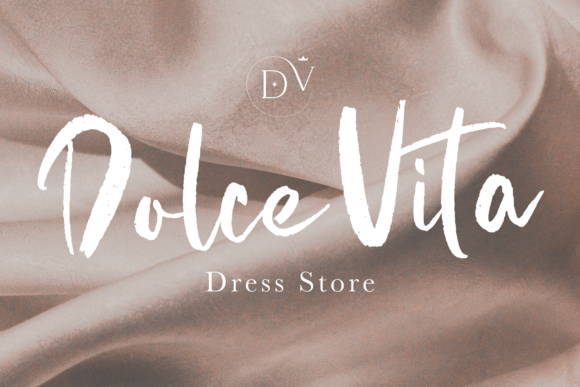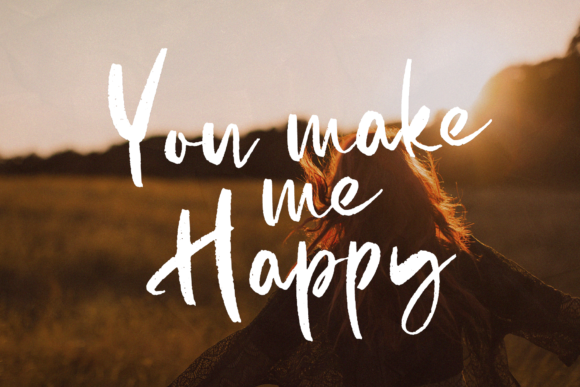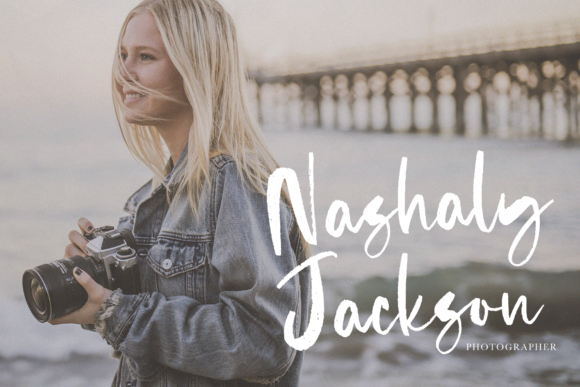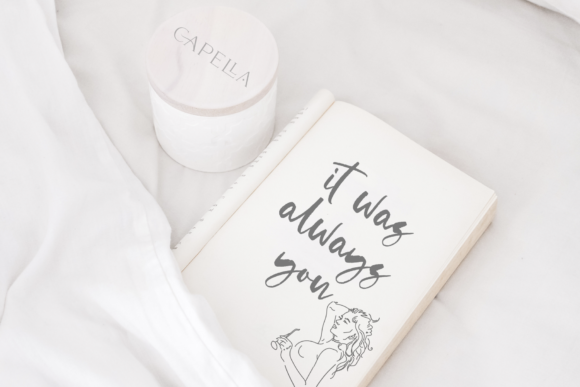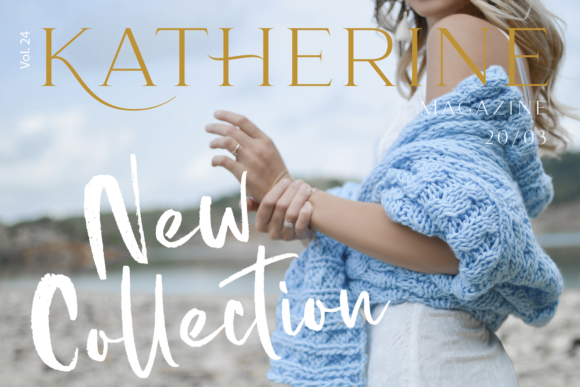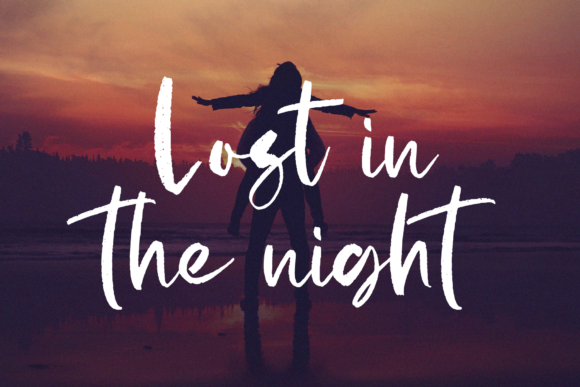
Introducing Capella Font: The Perfect Addition to Your Crafting Projects
Are you a designer or crafter looking for a unique and stylish font to add a personal touch to your projects? Look no further than Capella Font! This cheerful and stylish font is sure to elevate your crafting projects to the next level, making them stand out from the crowd.
What is Capella Font?
Capella Font is a modern and elegant font designed specifically for crafters and designers. Its unique and stylish design makes it perfect for a wide range of crafting projects, from DIY cards and invitations to scrapbooking and journaling.
With its clean lines and beautiful curves, Capella Font is a versatile font that can be used for both personal and commercial projects. Whether you’re creating a handmade gift or a professional marketing material, this font is sure to add a touch of personality and style.
Features of Capella Font
So, what makes Capella Font so special? Here are just a few of its key features:
• Unique and Stylish Design: Capella Font has a distinctive and stylish design that sets it apart from other fonts.
• Clean Lines and Beautiful Curves: The font features clean lines and beautiful curves, making it perfect for a wide range of crafting projects.
• Versatile: Capella Font can be used for both personal and commercial projects, making it a great addition to any designer’s toolkit.
• Easy to Read: Despite its stylish design, Capella Font is easy to read, making it perfect for projects where clarity is important.
Uses for Capella Font
So, what can you use Capella Font for? The possibilities are endless! Here are just a few ideas to get you started:
• DIY Cards and Invitations: Add a personal touch to your cards and invitations with Capella Font.
• Scrapbooking and Journaling: Use Capella Font to add a stylish and personal touch to your scrapbooking and journaling projects.
• Handmade Gifts: Add a special touch to your handmade gifts with Capella Font.
• Marketing Materials: Use Capella Font to create professional marketing materials that stand out from the crowd.
Why Choose Capella Font?
With so many fonts to choose from, why should you choose Capella Font? Here are just a few reasons:
• Unique Design: Capella Font has a unique and stylish design that sets it apart from other fonts.
• High-Quality: Capella Font is a high-quality font that is designed to produce crisp and clear results.
Author Pasha Larin
In conclusion, Capella Font is a cheerful and stylish font that is perfect for designers and crafters looking to add a personal touch to their projects. With its unique and stylish design, clean lines and beautiful curves, and versatility, Capella Font is a great addition to any designer’s toolkit.
Whether you’re creating DIY cards and invitations, scrapbooking and journaling, handmade gifts, or marketing materials, Capella Font is sure to elevate your projects to the next level. So why not give it a try today and see the difference it can make?